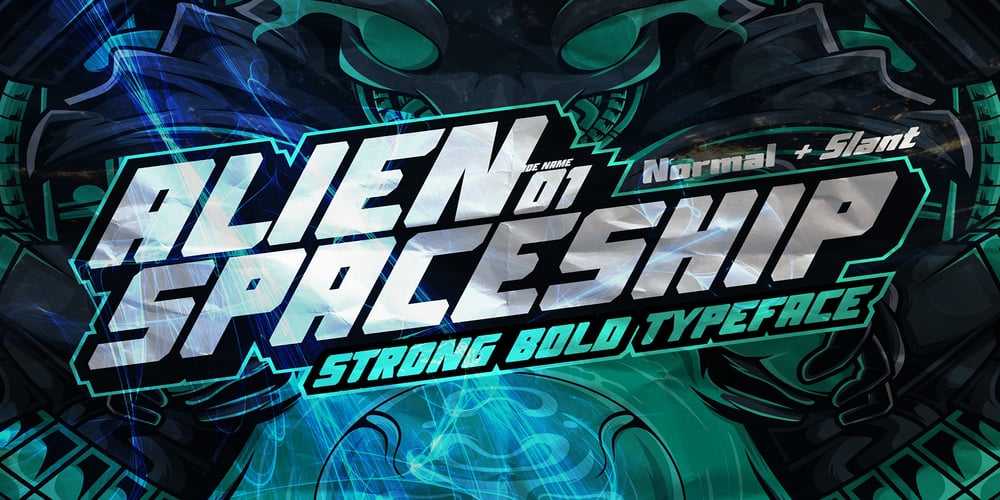
Alien Spaceship
Alien Spaceship font
Alien Spaceship Font Family was designed by Abdul Malik Wisnu, Anang Fibriyanto and published by Gassstype. Alien Spaceship contains 1 styles and family package options. introducing : Alien Spaceship Font ,come with powerful themes. We wanted to create the most unique character. It matches applies in some designs such as the gaming logo, logotype, brand, packaging, quotes, cute poster, kids shirt, cover book, birthday invitation and more custom design. Alien Spaceship Font is 3 style.